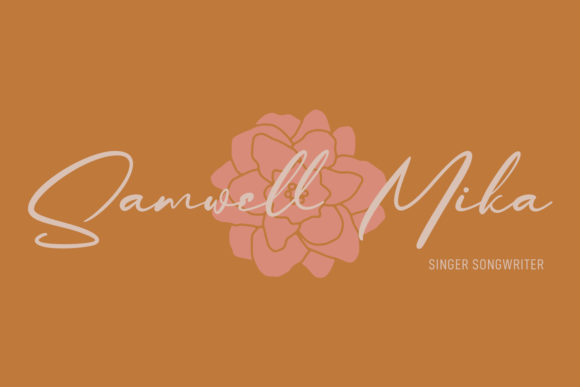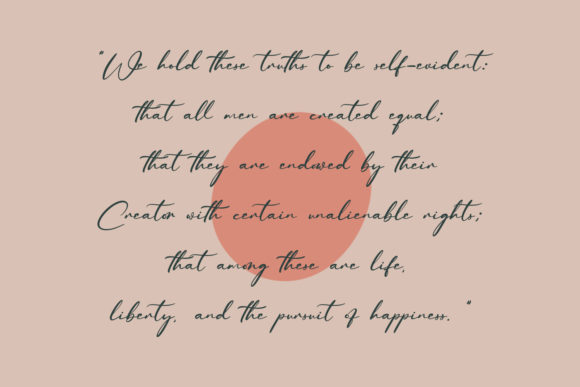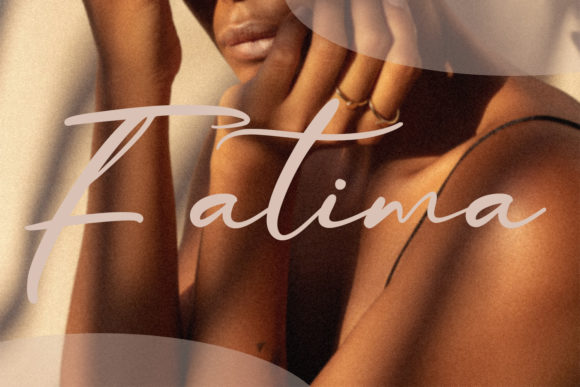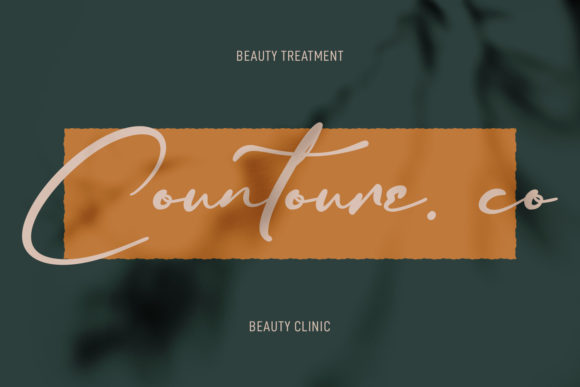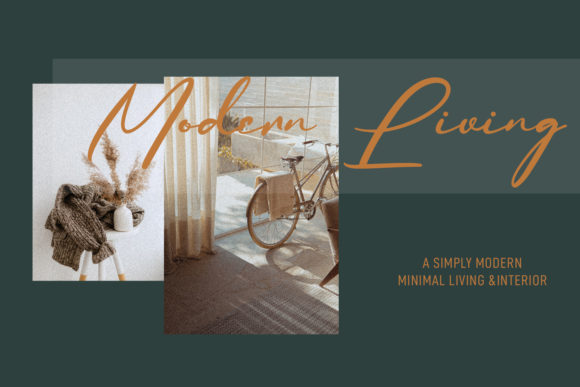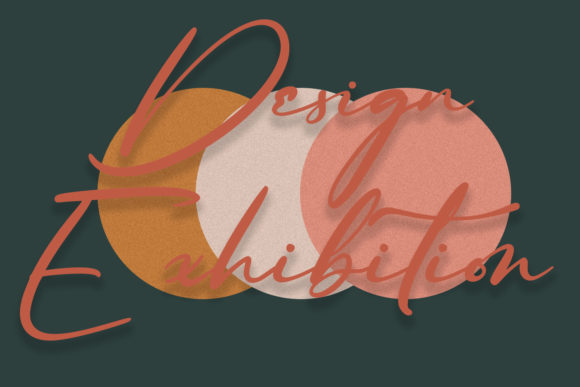
Introduction to Contoursy Signature Font Font
Fonts play a crucial role in design, and the Contoursy Signature Font font is a typeface that brings both character and versatility to any project. Whether you’re working on a branding project, a website, or a print design, the Contoursy Signature Font font offers a unique style that can elevate your work.
Contoursy Signature is a beautiful light handwritten font with a unique feel and a stunning impact.
It will add a luxury spark to any design project that you wish to create .
Key Features of Contoursy Signature Font Font
Why Choose Contoursy Signature Font Font?
The Contoursy Signature Font font is more than just a typeface – it’s a design tool that helps you communicate your message with style and clarity. Its unique character set and versatile design make it suitable for a wide range of applications, from elegant invitations to bold headlines.
With its carefully crafted letterforms and balanced proportions, the Contoursy Signature Font font ensures readability and visual appeal across all mediums.
What makes Contoursy Signature Font font special?
The Contoursy Signature Font font stands out with its unique design, exceptional readability, and versatility across various design applications.